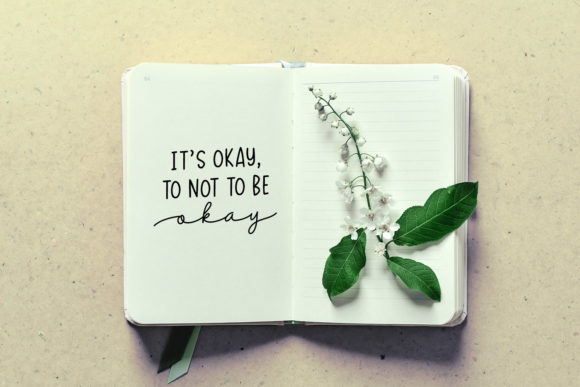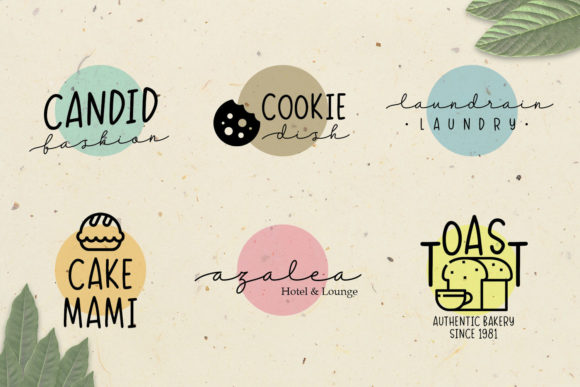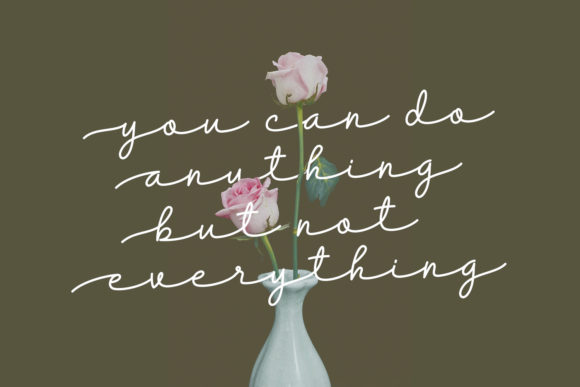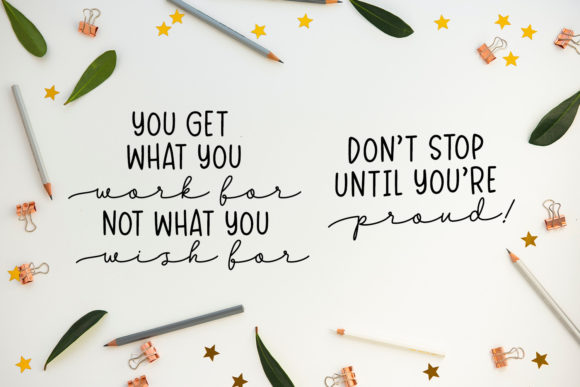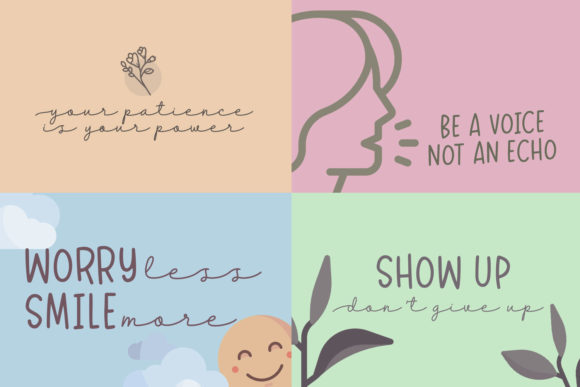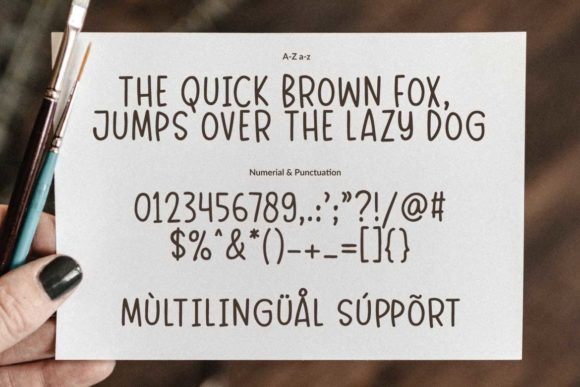
Introduction to Dreamy Notes Duo Font
Have you ever found yourself in a creative flow, pouring your heart and soul into a project, only to realize that the perfect font is missing? The right typography can make all the difference in bringing your vision to life. That’s exactly what the Dreamy Notes Duo Font aims to deliver – a high-quality, versatile duo font that will elevate your creative project to the next level.
As a designer, you know how valuable a great font can be. It’s not just about aesthetics; it’s about conveying the tone and personality of your brand. The Dreamy Notes Duo Font is a stunning combination of script and sans serif styles that can be used together or separately, offering endless possibilities for your design projects.
Key Features of Dreamy Notes Duo Font
- High-quality design with a dreamy and elegant aesthetic, perfect for creative projects.
- Available in two distinct styles: a bold, handwritten font and a delicate, cursive font, allowing for versatility in design.
Honest Review: Dreamy Notes Duo Font
- ✨ Beautifully designed script and sans-serif fonts
One thing that stands out about the Dreamy Notes Duo Font is its versatility. I’ve used it for everything from wedding invitations to social media graphics, and it always looks great. The designer has clearly put a lot of thought into creating a font that’s both elegant and easy to read.
Overall, I’m really impressed with the Dreamy Notes Duo Font. It’s a fantastic design resource that’s perfect for any creative project. I’d definitely recommend it to fellow designers and artists looking for a high-quality font that’s both stylish and functional.
Tips for Getting the Most Out of Dreamy Notes Duo Font
To get the most out of the Dreamy Notes Duo Font, use it in creative projects that require a unique and elegant design. This font is perfect for wedding invitations, birthday cards, or any other design that requires a touch of sophistication. You can also use it with a transparent background to create a beautiful and delicate design.
The Dreamy Notes Duo Font is a versatile design resource that can be used in various creative projects. Some common use cases include:
- Birthday cards and party invitations
- Stationery and business cards